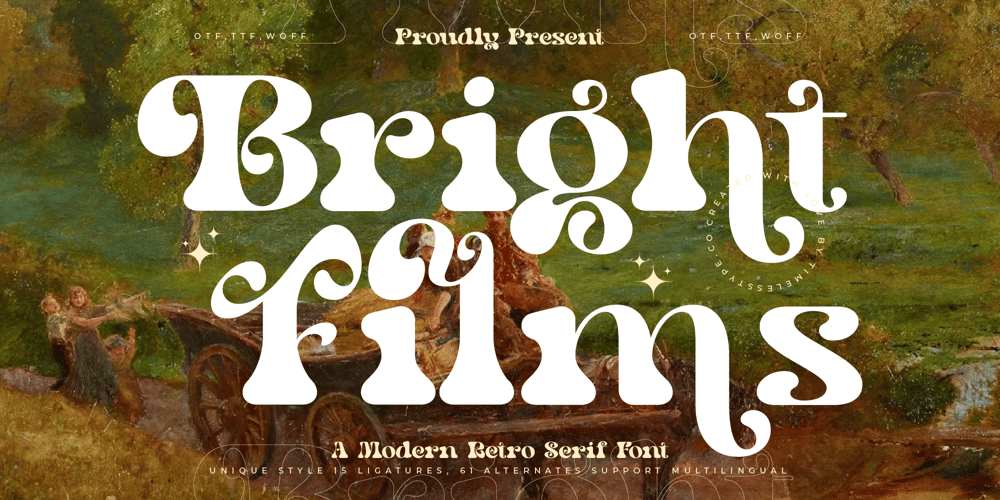
Bright Films Font Family was designed by Heru Utama Putra and published by Timelesstype Studio. Bright Films contains 2 styles and family package options. Bright Films – Modern Retro Serif Font , from Timelesstype, Suitable for any projects such as: logos, branding projects, homeware designs, product packaging, mugs, quotes, posters, shopping bags, t-shirts, book covers, name card, invitation cards, greeting cards, label, photography, watermark, special events, and all your other luxury and beautiful projects that need a Luxury Serif taste.